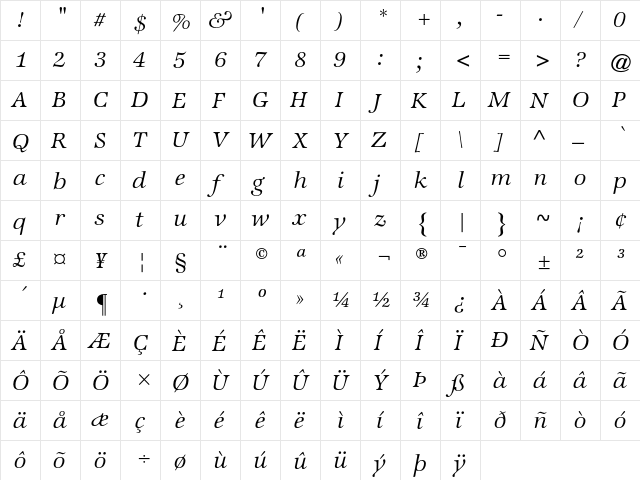
ATZapfInternational Regular
Design Context for ATZapfInternational Typeface
ATZapfInternational is a composed and adaptable typeface that performs quietly and consistently across a wide range of design contexts.